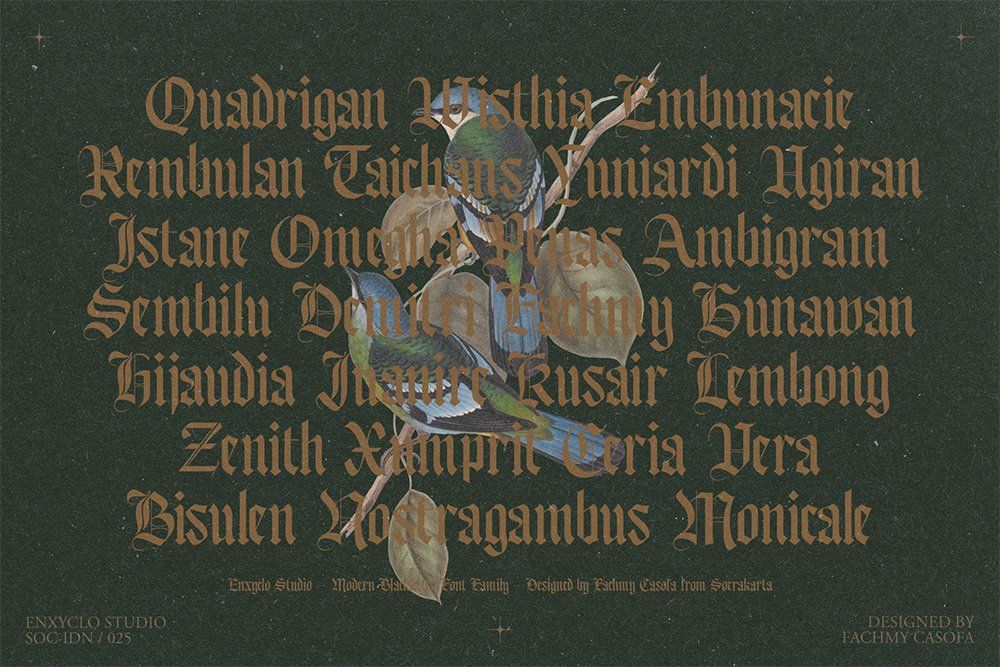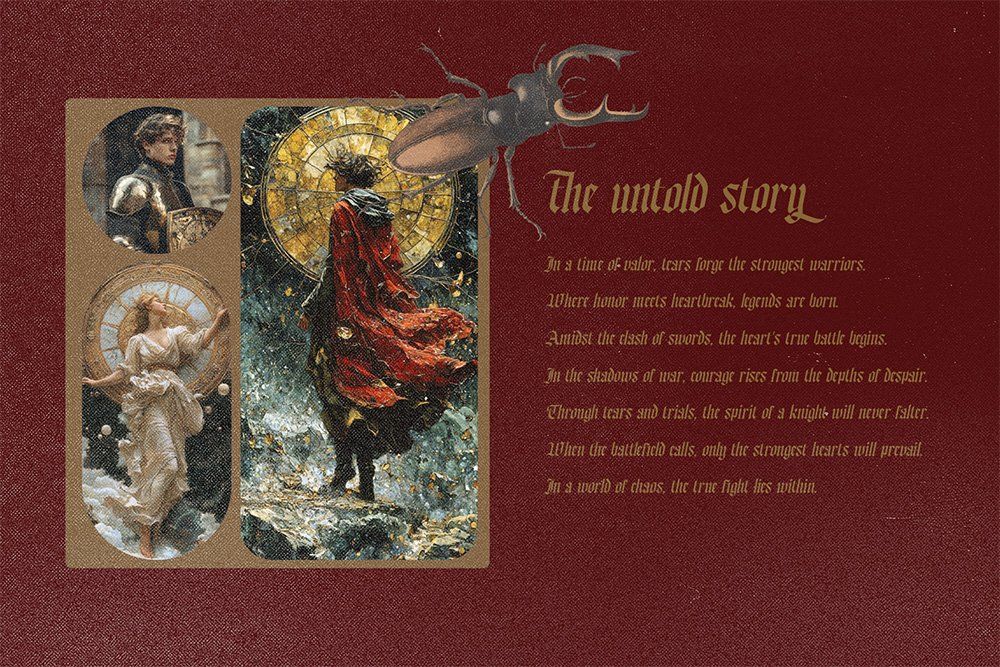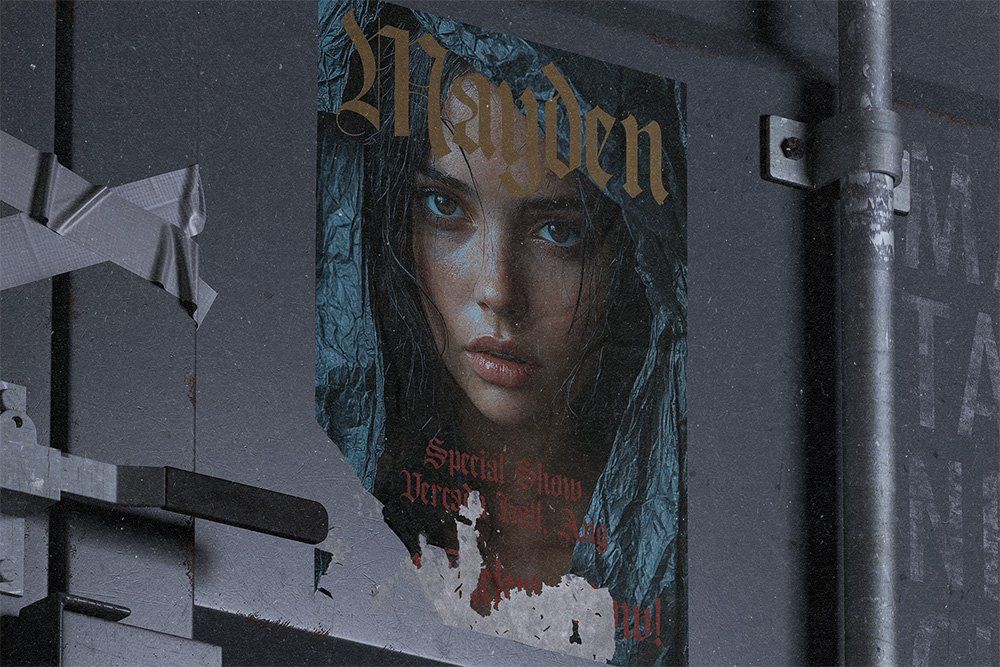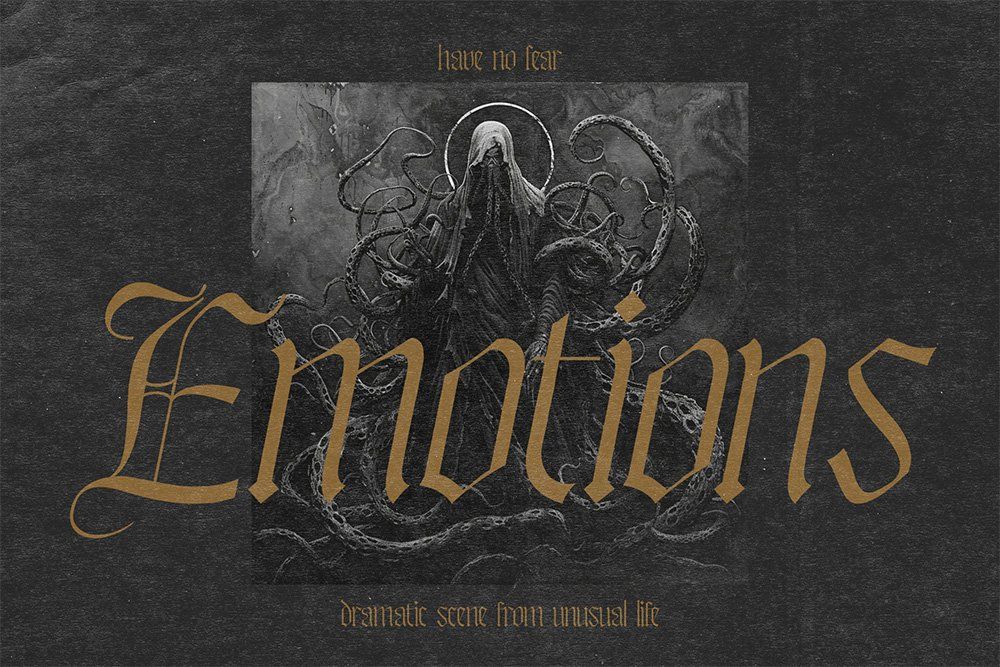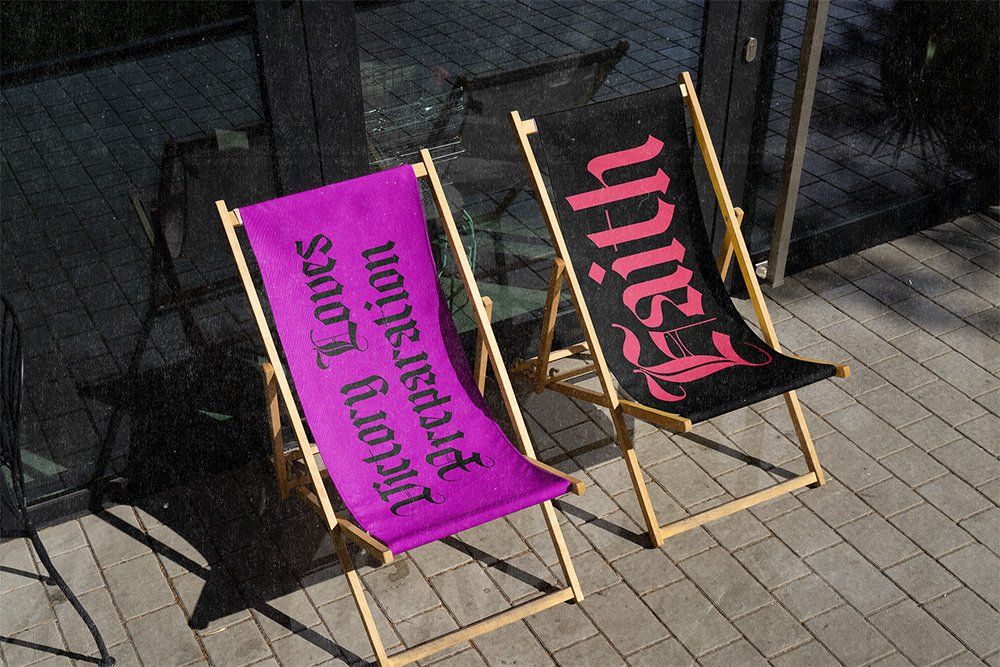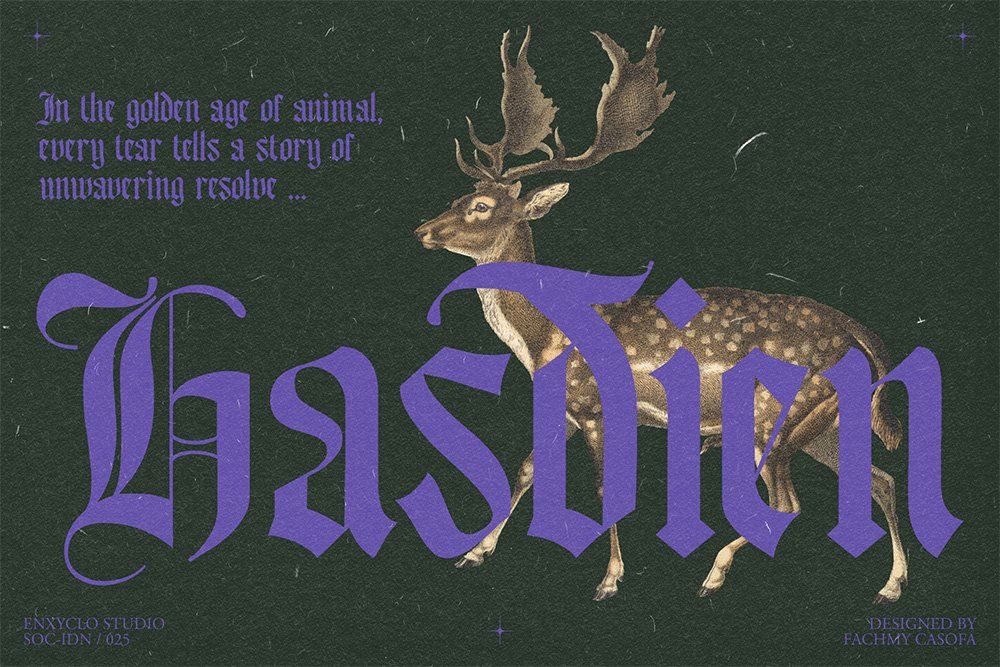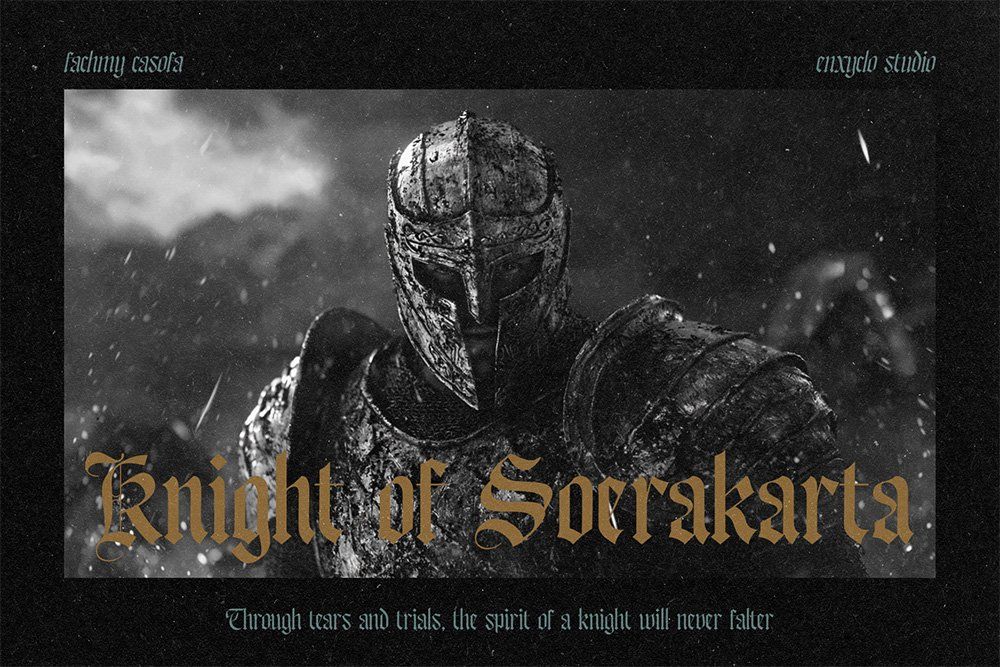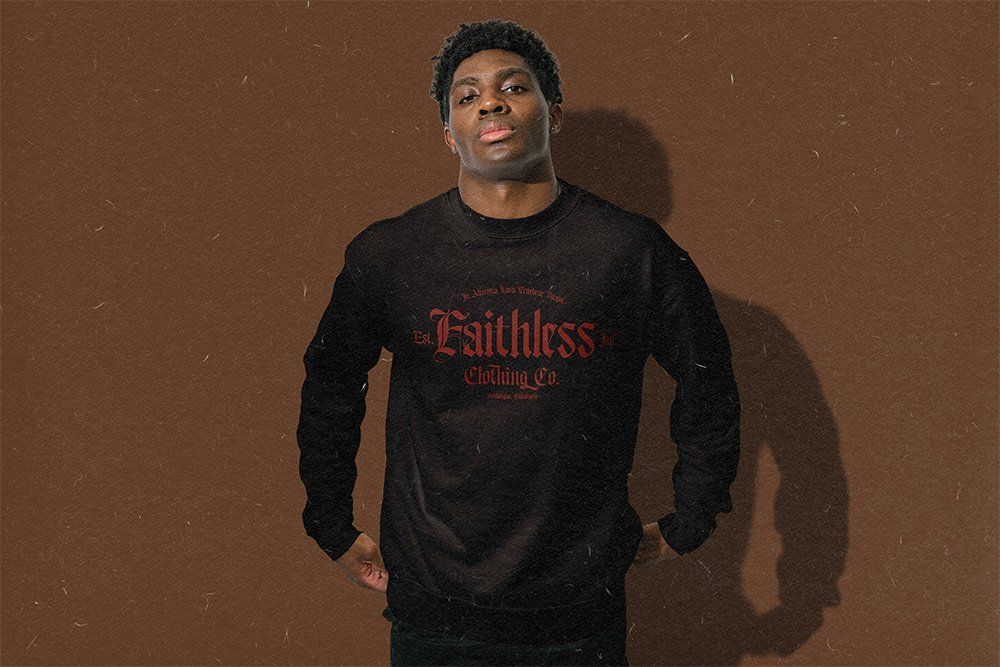
BAGESHRON is a modern timeless blackletter font that revives the spirit of medieval typography with a bold contemporary presence. Inspired by ancient manuscript lettering from the Middle Ages, this typeface fuses traditional blackletter aesthetics with modern form, creating a powerful visual identity that feels historic, brutal, and unmistakably modern. Crafted with sharp edges, rough strokes, and scratchy ornamental details, BAGESHRON channels the dark energy of black metal, death metal, heavy metal, and underground music culture. Its aggressive structure evokes the atmosphere of chaos, infernal symbolism, tribal markings, and hellish medieval art—making it perfect for visuals rooted in thrash metal, hardcore, metalcore, satanic aesthetics, and extreme rock culture.
Despite its brutal personality, BAGESHRON maintains a refined balance between old-world character and contemporary design. The result is a versatile blackletter font capable of elevating both medieval-themed projects and modern-classic branding. Whether used for an album cover, tattoo design, underground poster, or aggressive logotype, this typeface delivers a commanding and unforgettable presence. Designed for creators who embrace bold expression and dark artistic identity, BAGESHRON transforms typography into a visual force of rebellion and intensity—where medieval heritage collides with modern brutality in one striking blackletter experience.
FEATURE
PERFECT FOR
- Black Metal & Death Metal Band Logos
- Album Cover Design
- Tattoo Artwork & Gothic Lettering
- Hardcore & Thrash Metal Posters
- Underground Music Branding
- Medieval & Dark Fantasy Projects
- Aggressive Streetwear Graphics
- Rock & Metal Merchandise
- Extreme Event Flyers
- Dark Visual Identity Design